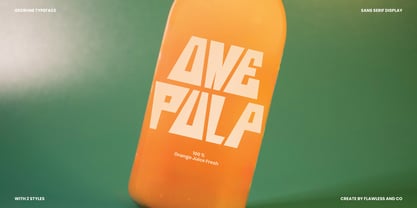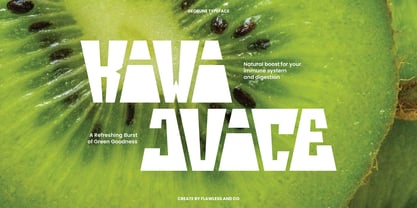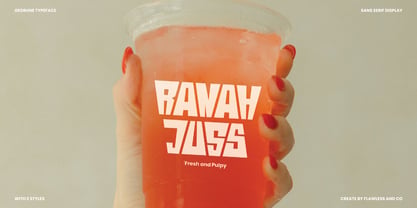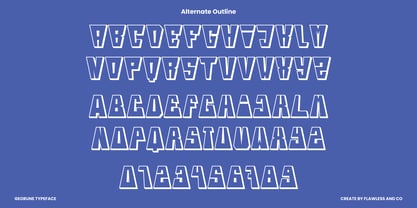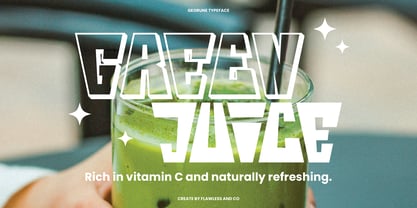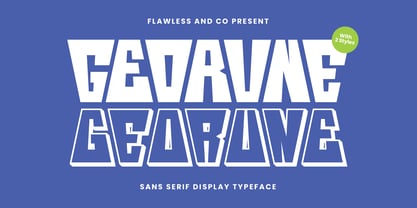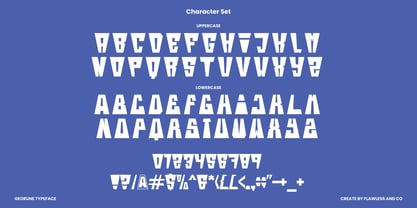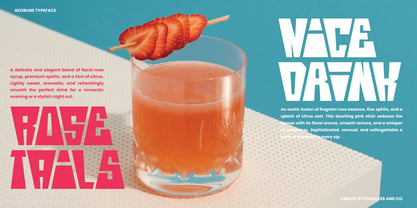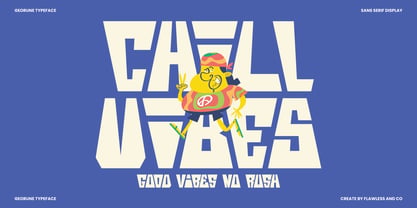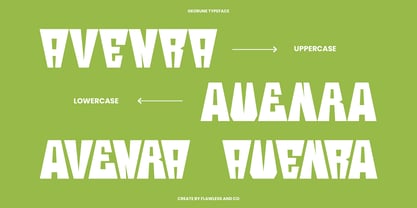
Georune
by Flawlessandco
The Georune Font Family was designed by Achmad Yani and published by Flawlessandco. Georune contains 1 styles. More about this family
Georune a powerful sans serif display typeface built with sharp geometry and rebellious spirit. With its bold stance and angular cuts, Georune brings a futuristic edge to any design striking, confident, and unmistakably modern. Available in 2 dynamic styles, Georune is perfect for headlines, logos, packaging, posters, and everything that needs attention-grabbing energy.
Features :
Multilingual, Uppercase alphabet A-Z, Lowercase alphabet a-z, Numbers 0-9, Some punctuation, Alternates & Ligatures
Designers: Achmad Yani
Foundry: Flawlessandco